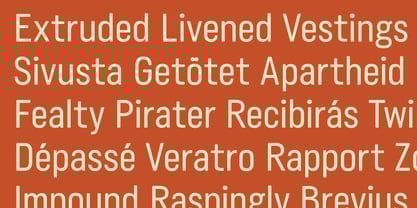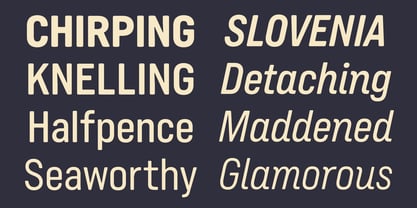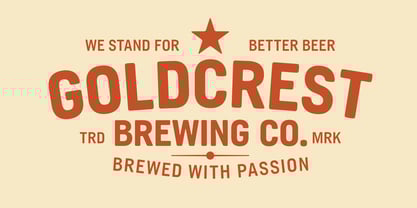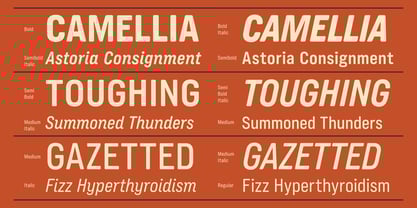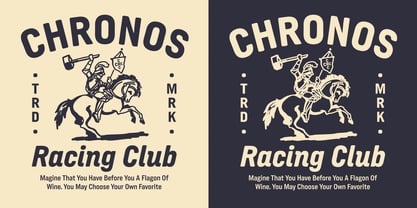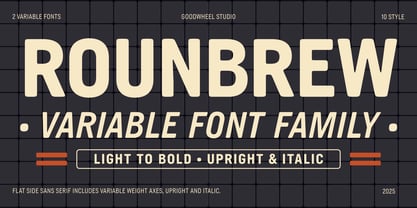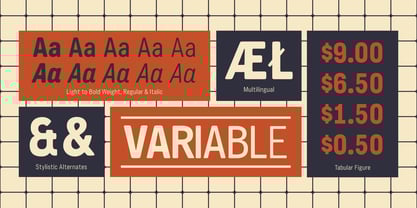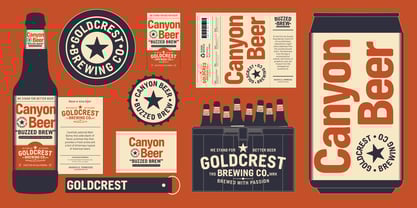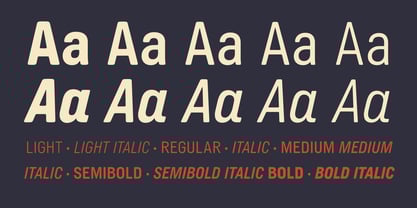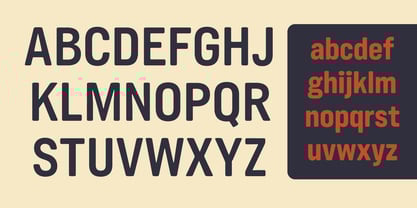
GW Rounbrew
by Goodwheel Studio
The GW Rounbrew Font Family was designed by Ilham Herry and published by Goodwheel Studio. GW Rounbrew contains 12 styles and family package options. More about this family
Flat-side sans serif with versatile variable weight axes, offering both upright and italic styles. Perfectly crafted for balanced type color in badges and typography compositions, this font shines in headline and branding applications, providing a modern, sleek, and dynamic visual impact.